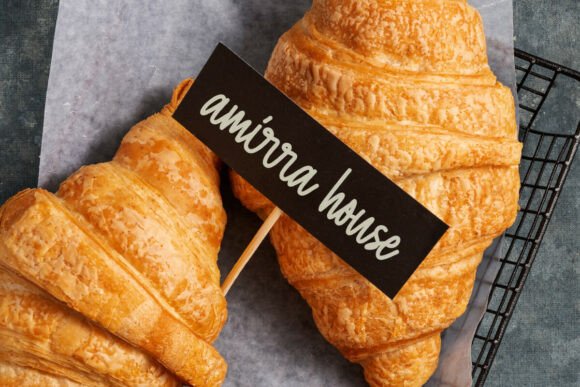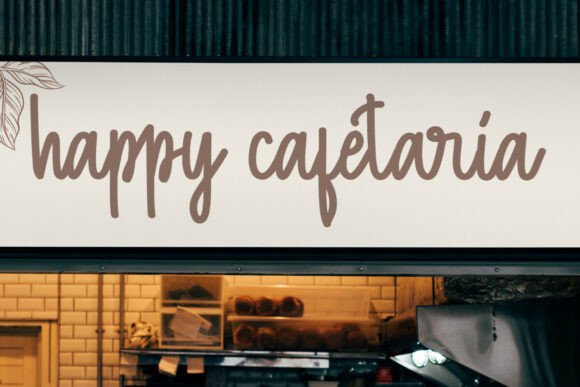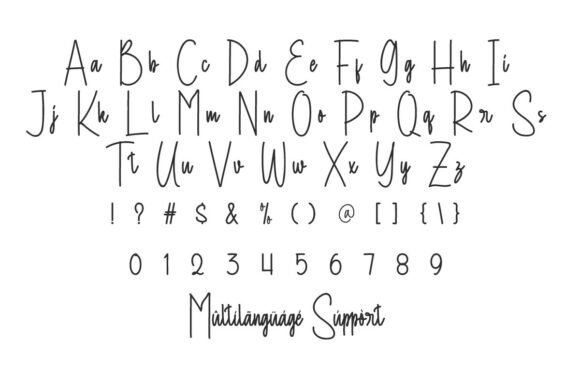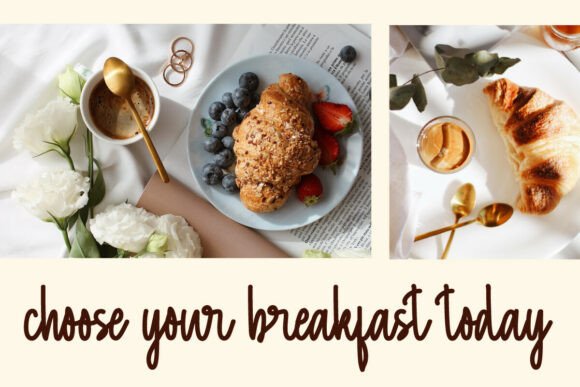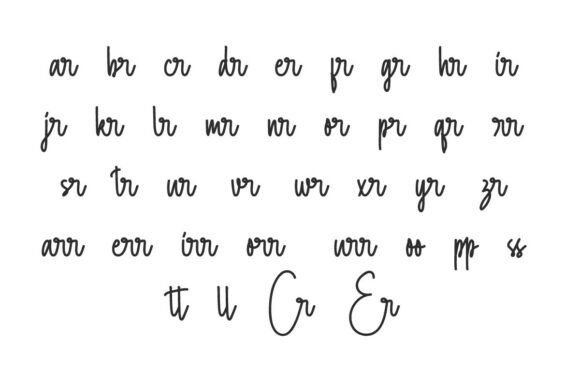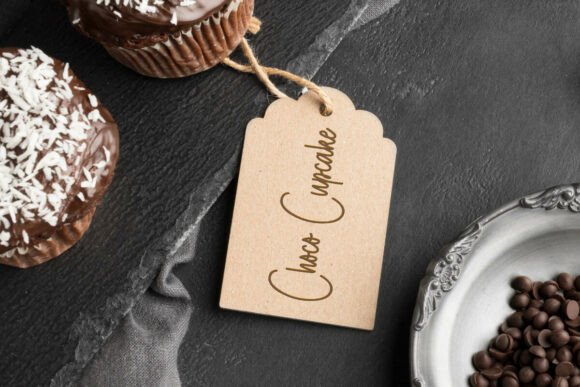
Croissant Cream Font: Elevate Your Designs with a Touch of Elegance
Are you on the hunt for a font that exudes a sense of natural elegance and sophistication? Look no further than the Croissant Cream Font, a beautiful handwriting font that is sure to elevate your designs to new heights. With its unique, stylish appearance, this font is perfect for designers and crafters looking to add a touch of whimsy and charm to their work.
A Font that Mimics the Real Thing
Croissant Cream Font is a natural and stylish handwriting font that has the appearance of real handwriting using a pen with small and thin ink. This gives it a distinctive, organic feel that is sure to capture the attention of your audience. Whether you’re designing a brochure, custom gift box, or website, this font is sure to add a touch of personality and flair to your work.
One of the best things about Croissant Cream Font is its versatility. This font can be used in a wide range of designs, including:
- Brochures and flyers
- Custom designs and illustrations
- Gift boxes and product packaging
- Invitations and event materials
- Labels and signage
- Menus and restaurant designs
- Posters and prints
- Product packaging and branding
- Quotes and inspirational designs
- Screen printing and apparel design
- Stationery and letterheads
- Websites and digital media
Suitable for a Wide Range of Industries
Croissant Cream Font is not just limited to a specific industry or niche. Its elegant and sophisticated appearance makes it suitable for a wide range of industries, including:
- Advertising and marketing
- Beauty products and cosmetics
- Cafes and restaurants
- Event and wedding planning
- Fashion and apparel
- Furniture and home decor
- Handicrafts and artisanal goods
- Kids’ products and toys
- Photography and creative services
Croissant Cream Font comes with a range of features and benefits that make it a must-have for designers and crafters. Some of its key features include:
- Ligature characters for a more natural, handwritten look
- Thin and small ink strokes for a delicate, elegant appearance
- Easy to read and understand, even at small sizes
Why Choose Croissant Cream Font?
So why choose Croissant Cream Font over other fonts on the market? Here are just a few reasons:
- Unique and distinctive appearance that sets it apart from other fonts
- Highly versatile and adaptable to different design styles and industries
- Elegant and sophisticated, yet still friendly and approachable